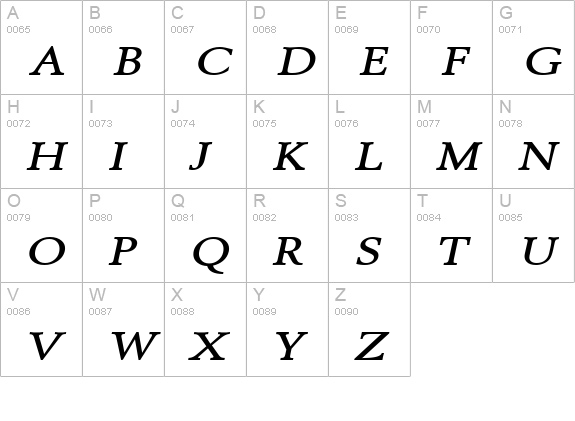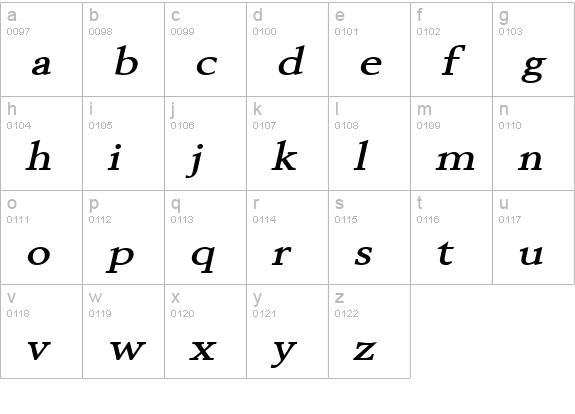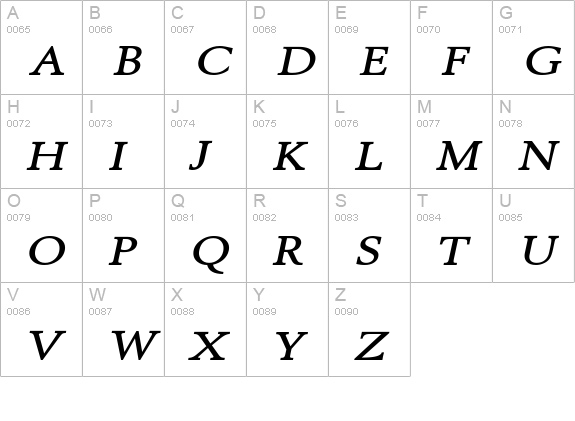
Revive 8 Wide BoldItalic is a distinctive, extended-width variant in the Revive typeface family \xE2\x80\x94 well suited to design and typography projects.
Introducing Revive 8 Wide BoldItalic font, a striking typeface that effortlessly combines boldness with elegance. Its wide and bold design commands attention and makes a visual impact, while its italicized slant adds a touch of sophistication and flair. This font is perfect for projects that require a strong and confident aesthetic, such as headlines, titles, posters, and logos. Revive 8 Wide BoldItalic font offers a unique balance between modernity and classic appeal, making it versatile for a wide range of design purposes. Its thick strokes and sharp edges give it a contemporary edge, while its subtle curves and stylish italicized angles add a timeless charm. One of the best features of this font is that it is freely available to download at FontsMarket.com. Whether you're a professional designer or simply someone who appreciates beautiful typography, you can now enhance your projects with Revive 8 Wide BoldItalic font without any cost or limitations. This means you can unleash your creativity and utilize this bold and italicized gem to its fullest potential, all without breaking the bank. With Revive 8 Wide BoldItalic font, you can create visually impactful designs that leave a lasting impression. Its distinctive style and versatility make it a valuable addition to any font collection. So why wait? Visit FontsMarket.com today and download Revive 8 Wide BoldItalic font for free, and let your designs revive with boldness and elegance.